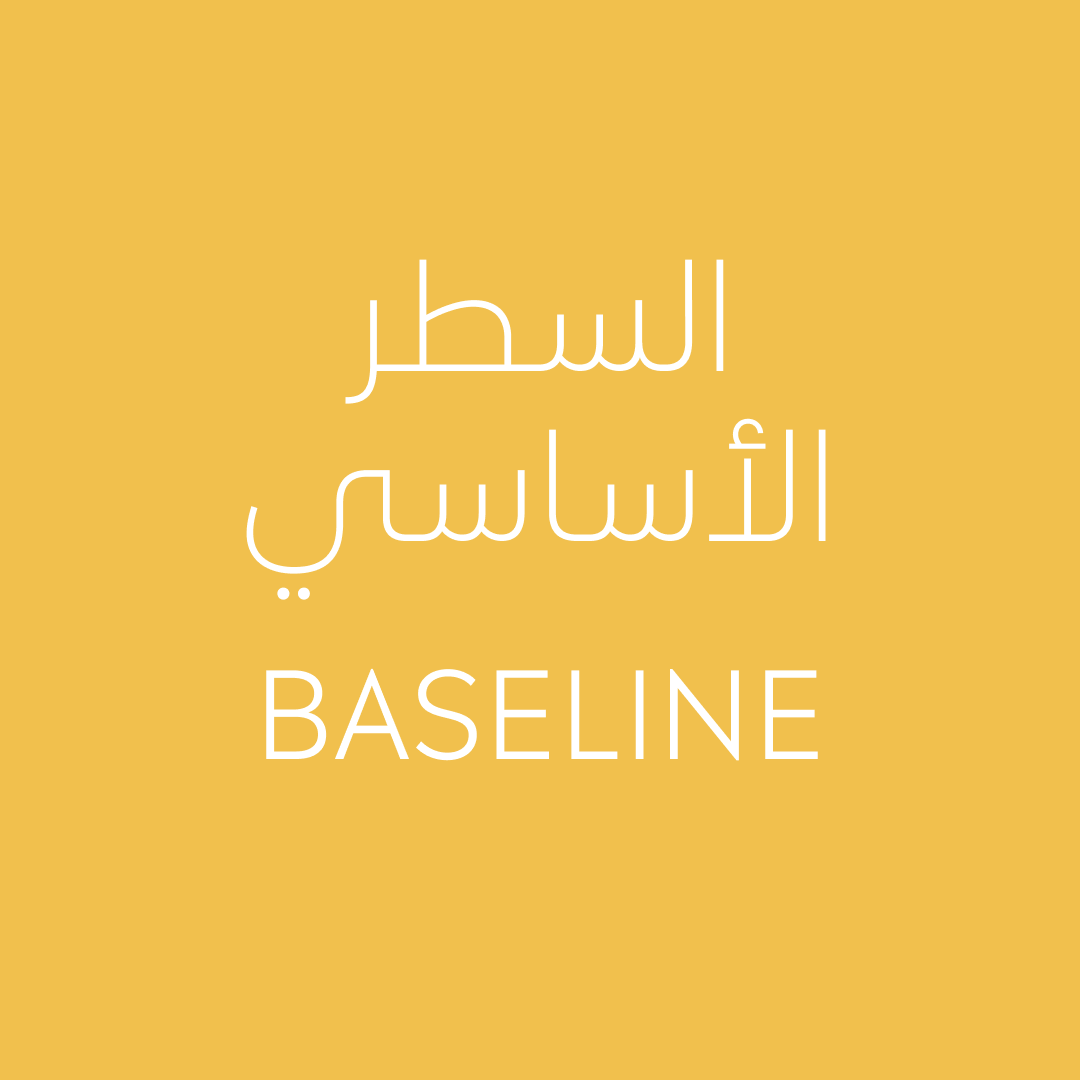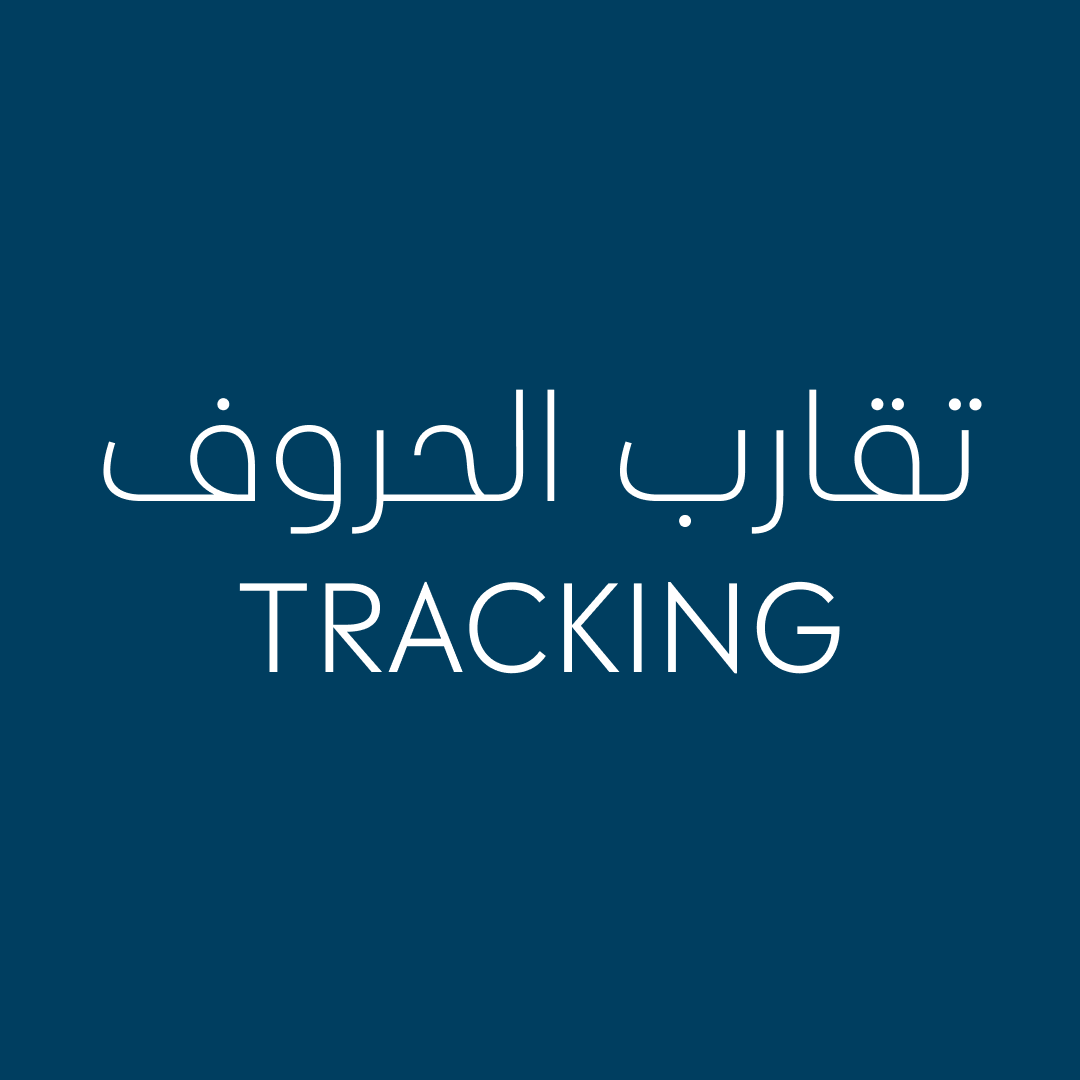
The great tradition and legacy of Arabic calligraphy, and the wide gap in type-related terminology between the Arabic language and other languages open an exciting opportunity to translate typographic terms into Arabic and to bring forth the aesthetic principles of Arabic calligraphy into English. This presents a unique opportunity to bridge the gap between the beauty of form and function and to expand the principles of type design with the unique ideologies that form the basis of the many styles of Arabic calligraphy. It’s an opportunity to return to a past that is steeped in tradition, in order to learn and bring into the present and future the principles and ideologies of Arabic letterforms into contemporary design practice. The aim is to be able to speak equally eloquently in Arabic and English about Arabic type and typography, to be able to express the many nuances of their aesthetic qualities as well as the technologies of contemporary design. It’s a living project, in dialogue between part present and future, and will continuously evolve as the researchers delve into the source material.
Why an Arabic type dictionary?
This initiative is important in order to satisfy the needs of design publishing in Arabic, and in order to be able to speak to our legacy and culture, to tell our story. This project is also crucial in the education of next generations of Arab designers, where the absence of published resources in this topic reveals the under-privileged nature of our field, of being able to speak about type and typography in Arabic. This project is targeted towards designers, educators, and practitioners who are operating in this field and would like to be able to communicate in Arabic.
The scientific committee
This project is led by members of the scientific committee which includes Dr. Bahia Shehab, Dr. Nadine Chahine, Dr. Huda Smitshuijzen AbiFarès, Samir Sayegh, Yara Khoury Nammour, Najla Badran, and Kamal Mansour, who collectively bring extensive expertise in typography, design, and Arabic visual culture.
The project is initiated by Dr. Bahia Shehab and the TypeLab at the American University of Cairo.
إن الإرث العريق للخط العربي، والفراغ الواسع بين المصطلحات التيبوغرافية في اللغة العربية واللغات الأخرى، يبرز فرصةً واعدةً لترجمة المصطلحات التيبوغرافية إلى العربية، ولاستحضار المبادئ الجمالية للخط العربي الى اللغة الإنجليزية. وهذا يُمثل فرصةً فريدةً لسد الفراغ بين جمال الشكل والوظيفة من جهة، ولتوسيع نطاق مبادئ التصميم التيبوغرافي من خلال دراسة الأيديولوجيات الفريدة التي تُشكل أساس أنماط الخط العربي المتعددة. إنها فرصةٌ للعودة إلى ماضٍ عريق، من أجل تعلم مبادئ وأيديولوجيات أشكال الحروف العربية، ونقلها إلى الحاضر والمستقبل. الهدف هو التمكن من التحدث ببلاغةٍ متساويةٍ باللغتين العربية والإنجليزية عن التيبوغرافية العربية، والتعبير عن الفروق الدقيقة في خصائصها الجمالية بالاجمال، وتقنيات التصميم المعاصر بشكل خاص. إنه مشروعٌ حيّ، في حوارٍ دائم بين الحاضر والمستقبل، وسيتطور باستمرارٍ مع تعمق الباحثين في المواد المصدرية
لماذا قاموس الطباعة العربية؟
هذه المبادرة مهمة لتلبية احتياجات نشر مراجع التصميم باللغة العربية، وللتواصل مع تراثنا وثقافتنا. كما يُعد هذا المشروع بالغ الأهمية في تعليم الأجيال القادمة من المصممين العرب، حيث يكشف غياب الموارد المنشورة في هذا المجال عن قلة فرص التحدث عن التيبوغرافية باللغة العربية. والهدف من هذا المشروع هو دعم المصممين والمعلمين والممارسين العاملين في هذا المجال، والذين يرغبون في التواصل باللغة العربية